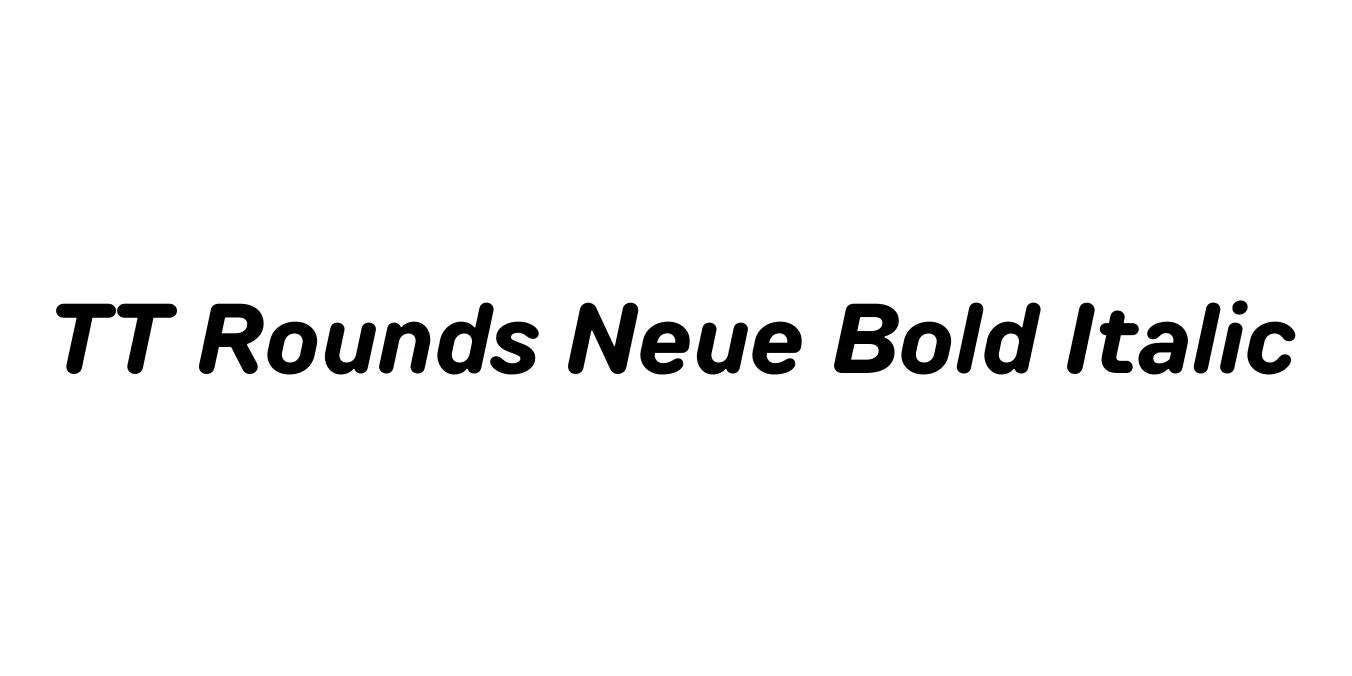
TT Rounds Neue Bold Italic
Designed by TypeType
| Category | Rounded Sans Serif |
| Designer | TypeType |
| Similar Fonts | VAG Rounded, Helvetica Rounded, Arial Rounded, Nunito, Proxima Soft |
TT Rounds Neue Bold Italic represents a complete overhaul and technical refinement of the original TT Rounds family, crafted by the renowned TypeType foundry. This specific weight combines the substantial presence of a bold typeface with the energetic flow of an italic slant, all while retaining the signature soft, rounded terminals that define the collection. The design focuses on geometric perfection and balanced proportions, ensuring that the typeface feels modern, professional, and exceptionally friendly to the viewer.
The Bold Italic version is particularly adept at handling complex typographic tasks where both emphasis and a gentle tone are required. By smoothing out harsh corners and optimizing the internal spacing, the designers have created a font that maintains high legibility even in challenging environments. It is a versatile tool for contemporary branding and digital design, offering a unique blend of corporate stability and playful approachability that works seamlessly across web and print platforms.
TT Rounds Neue Bold Italic Best Uses
Excellent for creating approachable and trustworthy brand identities.
Ideal for buttons, call-to-actions, and headers in mobile applications.
Perfect for organic, child-friendly, or modern consumer goods.
Great for slogans that need to stand out without being visually aggressive.